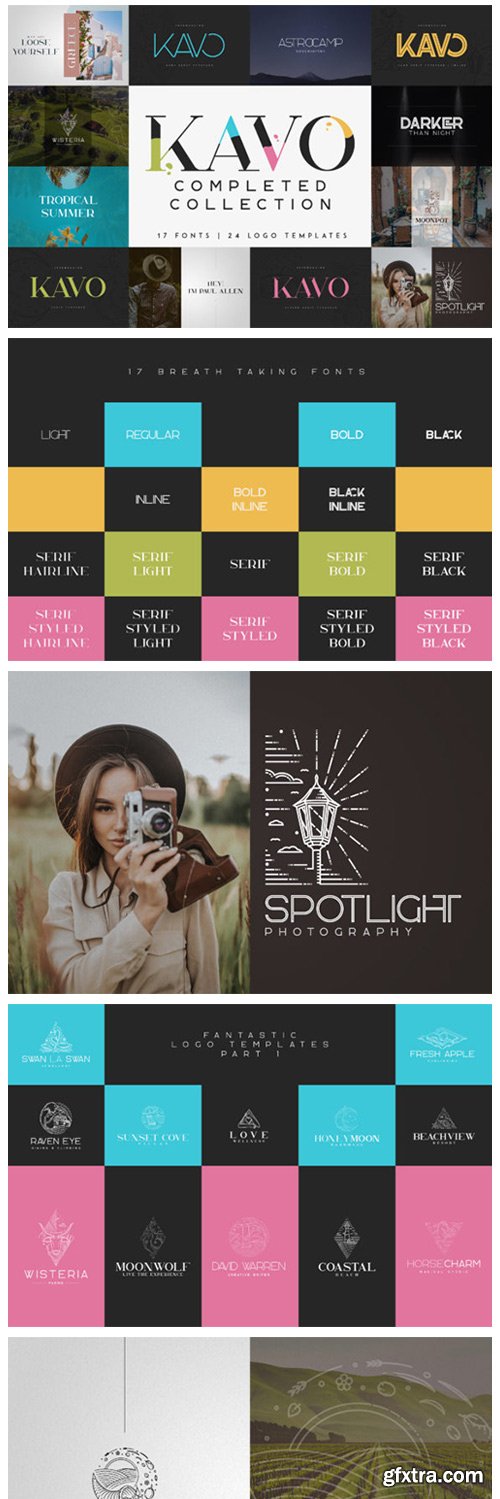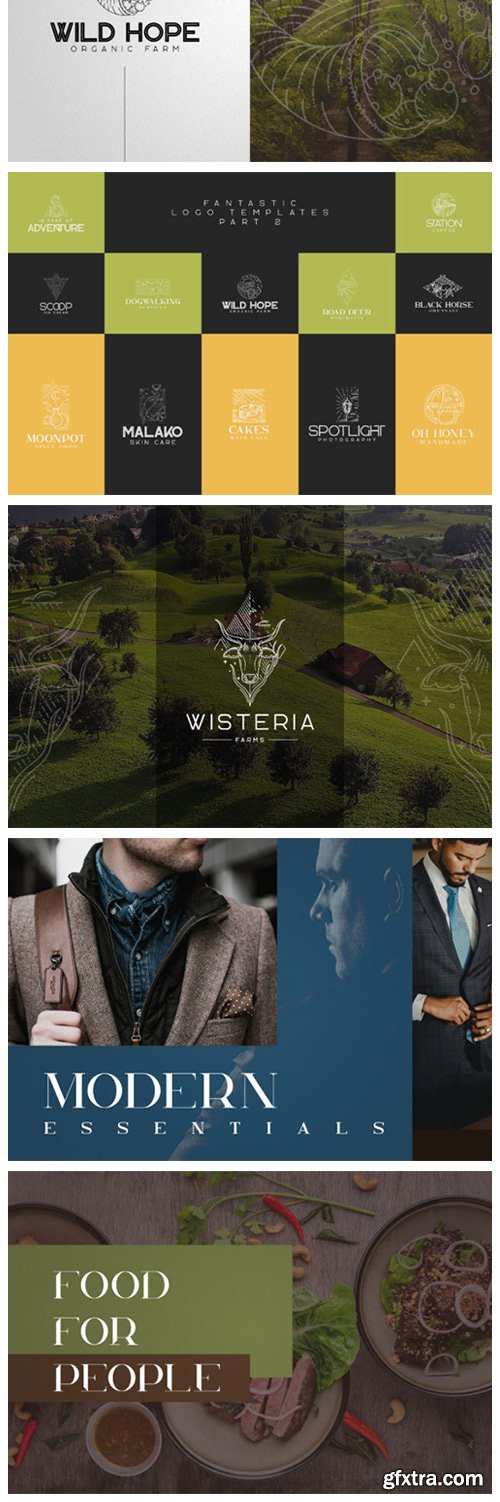
Kavo Completed Collection
Kavo is a bold and authentic serif font. It can easily be matched to an incredibly large set of projects, so add it to your creative ideas and notice how it makes them stand out!